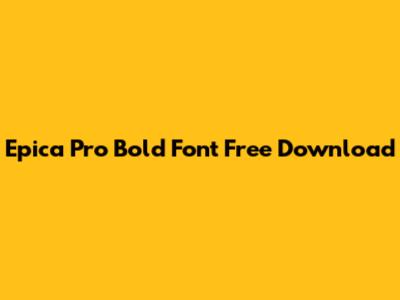
What is Epica Pro Bold?
Epica Pro Bold is a modern sans-serif typeface known for its clean lines and bold appearance. It’s a favorite among designers for its versatility and readability. This font exudes confidence and strength, making it ideal for various applications, from branding to editorial design. Epica Pro Bold is designed to be both functional and aesthetically pleasing, ensuring it looks great in print and on screen. Its bold weight adds emphasis and impact, making it perfect for headlines, titles, and call-to-action buttons. The font's clarity ensures that it remains legible even at smaller sizes, which is crucial for body text and other detailed design elements. Furthermore, Epica Pro Bold includes a comprehensive set of characters, including uppercase and lowercase letters, numbers, punctuation marks, and symbols, making it suitable for international projects. Its well-balanced letterforms and consistent design create a harmonious visual experience, enhancing the overall look and feel of any design. Whether you're designing a website, creating marketing materials, or working on a branding project, Epica Pro Bold is a reliable choice that will help you achieve a professional and polished look.
Features of Epica Pro Bold
When you download Epica Pro Bold font for free, you'll notice it has a lot of cool features. One of the best things about it is its clean and modern design, which makes your text look sharp and professional. The bold weight is perfect for grabbing attention, so it’s great for headlines and titles. Plus, it’s super readable, whether you’re looking at it on a screen or in print. Epica Pro Bold includes a full set of characters, like uppercase and lowercase letters, numbers, and punctuation, so you can use it for just about anything. It also supports multiple languages, which is awesome if you’re working on international projects. Another great feature is its versatility. You can use it for websites, logos, posters, and even in documents. The consistent design ensures that all the letters work well together, creating a balanced and harmonious look. Whether you’re a seasoned designer or just starting out, Epica Pro Bold is a font that can really elevate your work and make it stand out. Its combination of style and functionality makes it a valuable addition to any font library.
How to Use Epica Pro Bold Effectively
So, you want to download Epica Pro Bold font for free and use it like a pro? Awesome! First off, think about where it will have the most impact. Epica Pro Bold shines in headlines and titles. Its strong, clear letters grab attention right away, making your message super clear. But don't stop there – this font is also great for logos and branding. Imagine your brand name in those bold letters – instant recognition! When using it, keep readability in mind. Even though it's bold, make sure there's enough space between the letters so it doesn't look crowded. Also, think about the colors. Epica Pro Bold looks fantastic against both light and dark backgrounds, but experiment to see what works best for your project. Try pairing it with a simpler font for body text. This contrast makes the headlines stand out even more while keeping the overall design clean and easy to read. And hey, don't be afraid to play around with different sizes and weights. A slightly smaller size can add a touch of elegance, while keeping it large and in charge emphasizes the font's boldness. Whether you're designing a website, creating marketing materials, or working on a personal project, Epica Pro Bold can really take your designs to the next level. Just remember to keep it balanced, readable, and true to your vision. You got this!